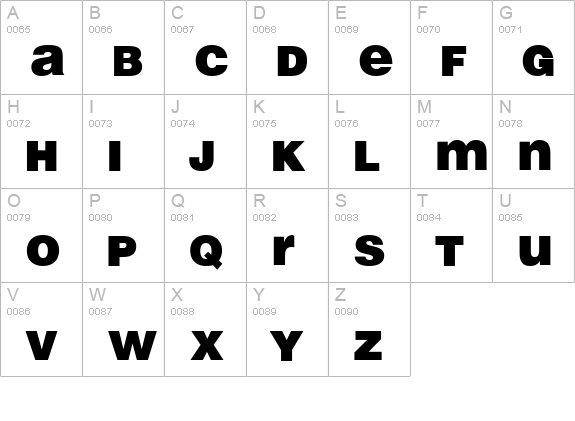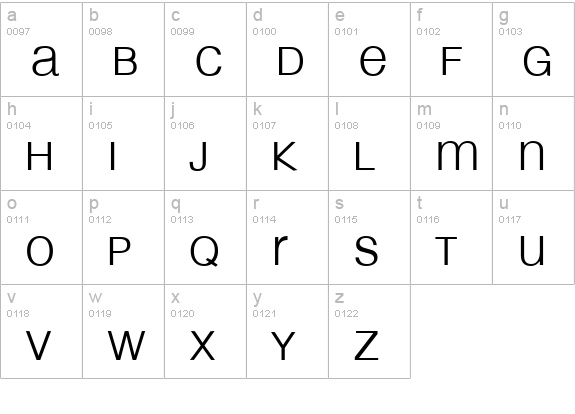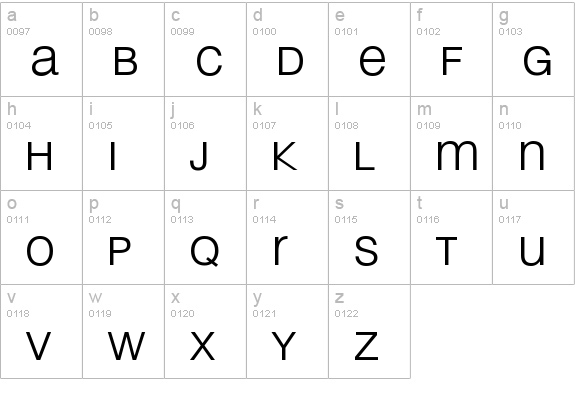
Light & Black Font Details
Light & Black is a refined, elegant variant in the Light typeface family \xE2\x80\x94 well suited to elegant body text, refined sub-headings, and luxury branding.
Light & Black font is a stunning and versatile typeface that offers a perfect balance between elegance and modernity. The light weight exudes a sense of sophistication, while the black weight commands attention and adds a touch of boldness to any design. With its clean lines and stylish curves, Light & Black font is ideal for a wide range of projects, from branding and advertising to packaging and web design. What makes Light & Black font even more appealing is that it is available for free download at FontsMarket.com. This means you can easily access this beautiful font and use it in your creative endeavors without any cost. Whether you're a graphic designer, a blogger, or a business owner looking to enhance your visual identity, Light & Black font is a fantastic choice that will elevate your projects to the next level. Download it today and see for yourself the transformative power of this exquisite typeface.